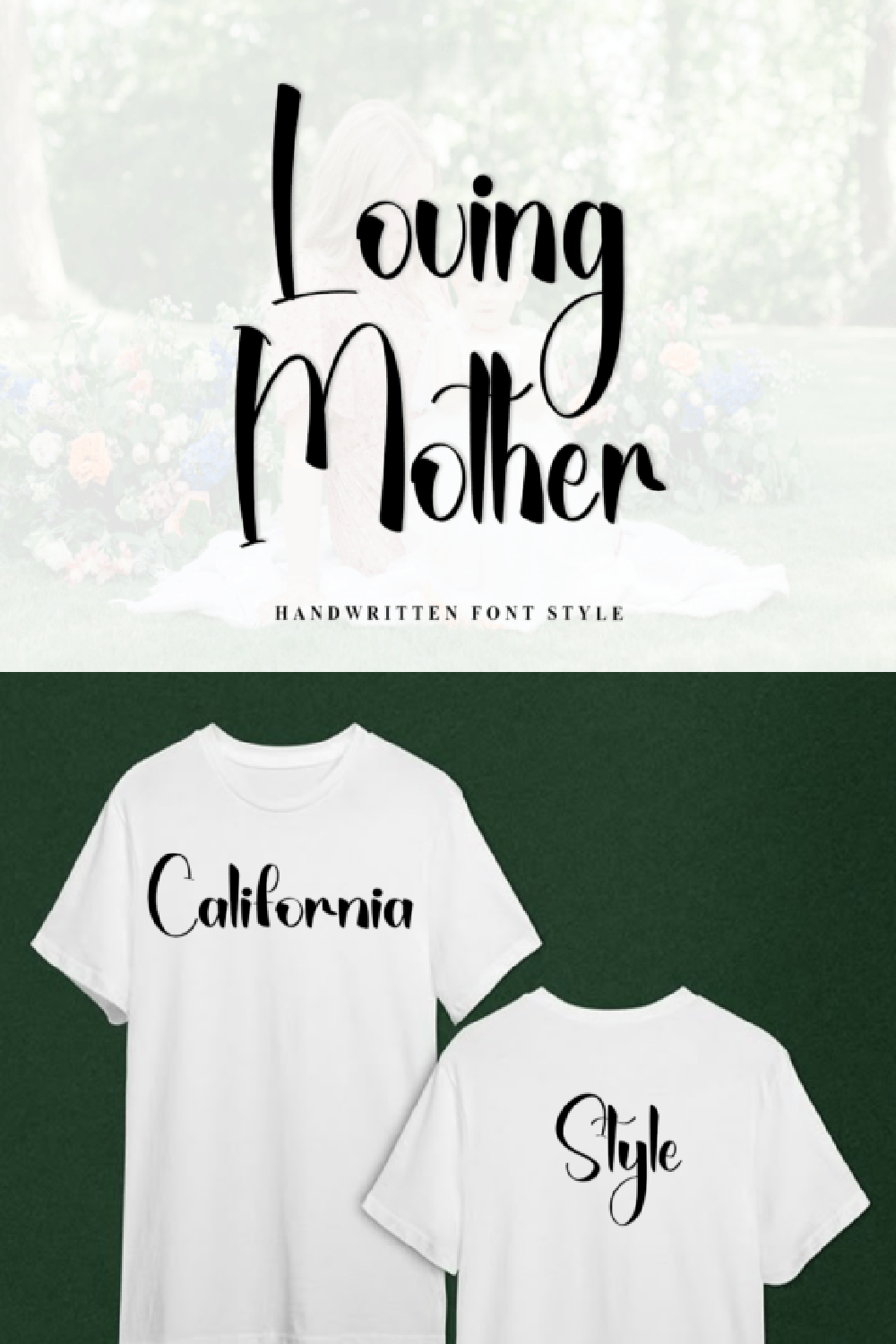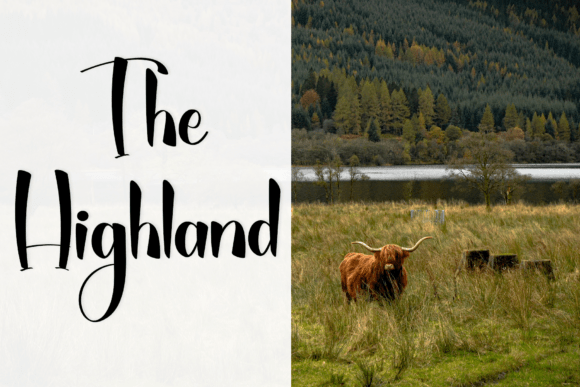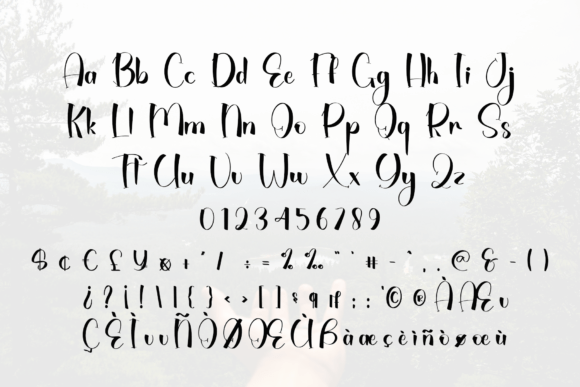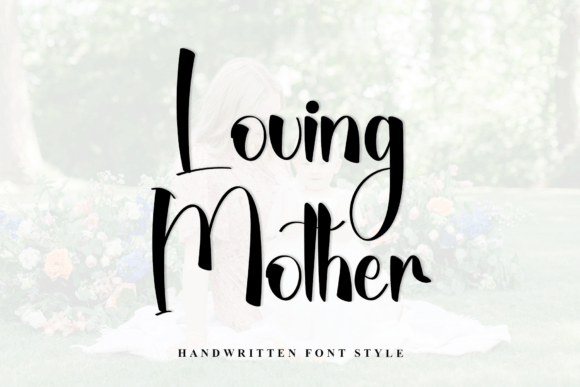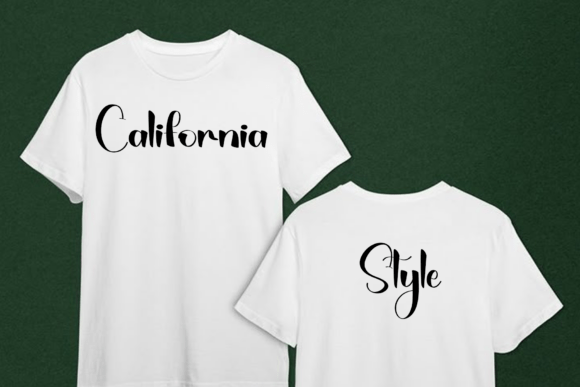
Loving Mother Font
About the Loving Mother Font
The Loving Mother Font is here to transform your projects with its distinctive character and style. Loving Mother is a beautiful handwritten font with a natural, flowing style. It looks like elegant cursive writing, perfect for adding a personal and stylish touch to invitations, logos, and social media posts.
Loving Mother’s elegant cursive style is ideal for projects requiring a touch of personal warmth and sophistication. It excels in headlines, short text blocks on invitations and greeting cards, and logo design where a handcrafted feel is desired. However, its flowing nature makes it less suitable for body text or UI elements; the inconsistent letter spacing and varying stroke weights would hinder readability in longer passages.
Consider pairing Loving Mother with a clean sans-serif like Montserrat for a balanced contrast—the geometric sans-serif will provide structure and readability, complementing the font’s organic charm. Alternatively, a classic serif like Garamond would add a touch of traditional elegance, enhancing its sophisticated feel. Avoid pairing it with other script fonts, which could create visual clutter.
The overall personality of Loving Mother is graceful and friendly, yet undeniably elegant. It projects a sense of refined approachability, making it perfect for brands associated with femininity, handcrafted goods, or personalized services.
Loving Mother Font Usage Examples
Loving Mother Font Example